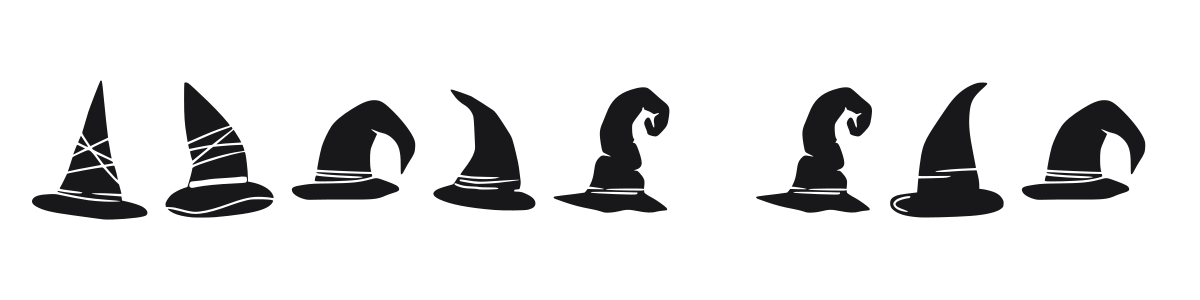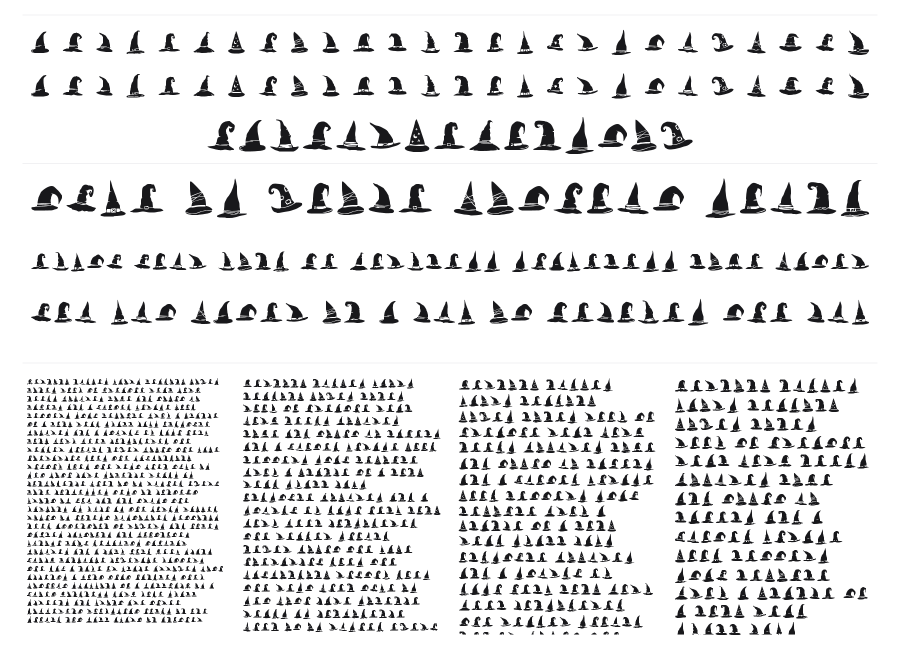
Witch Hat
Witch Hat is a dingbat font featuring a collection of solid black witch hat silhouettes, each with its own distinct shape and decorative details. The variety across the set -- buckles, stars, curled brims, slouched peaks -- gives designers a toolkit of seasonal icons rather than a single repeated symbol. Great for Halloween graphics, seasonal packaging, and festive editorial work.